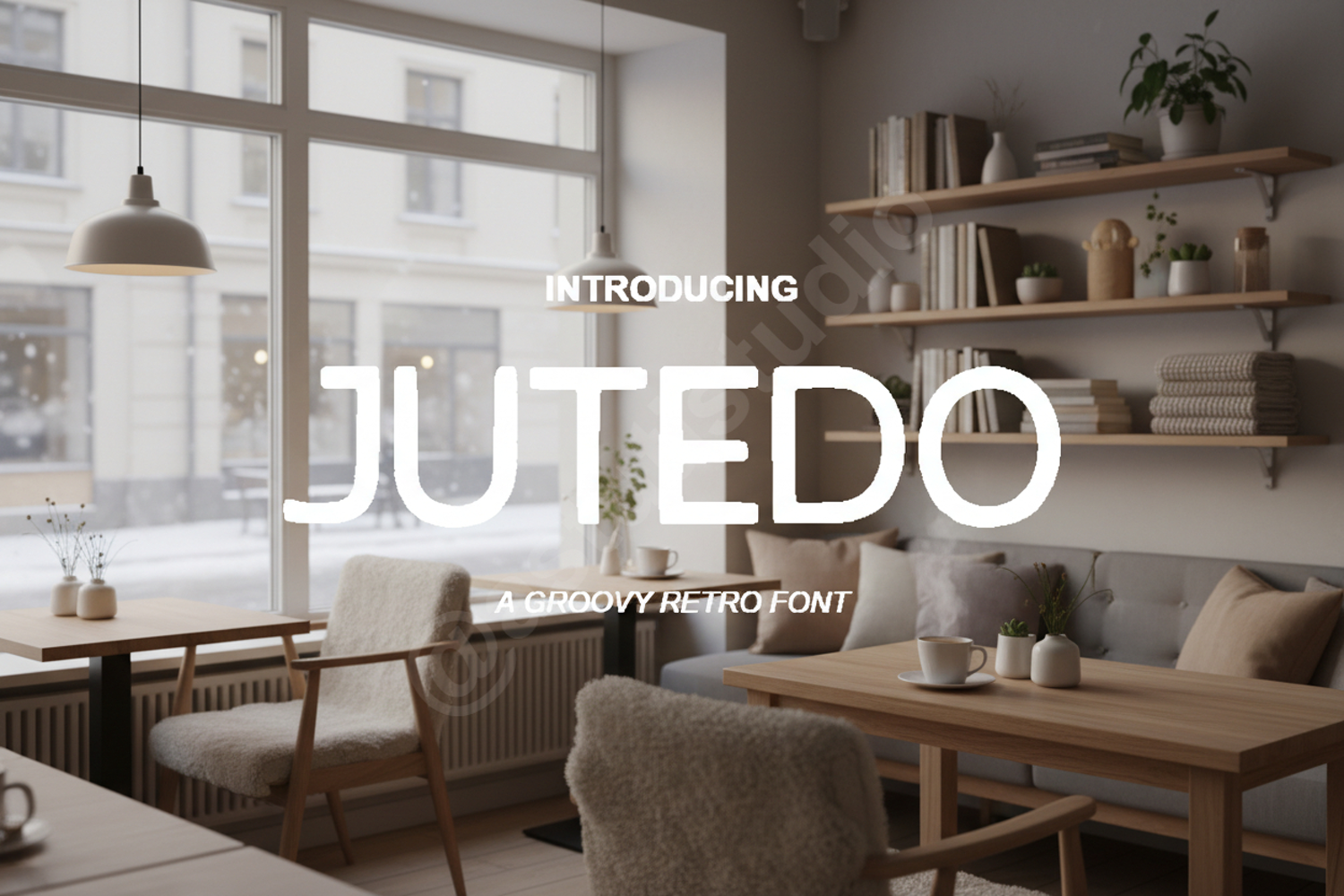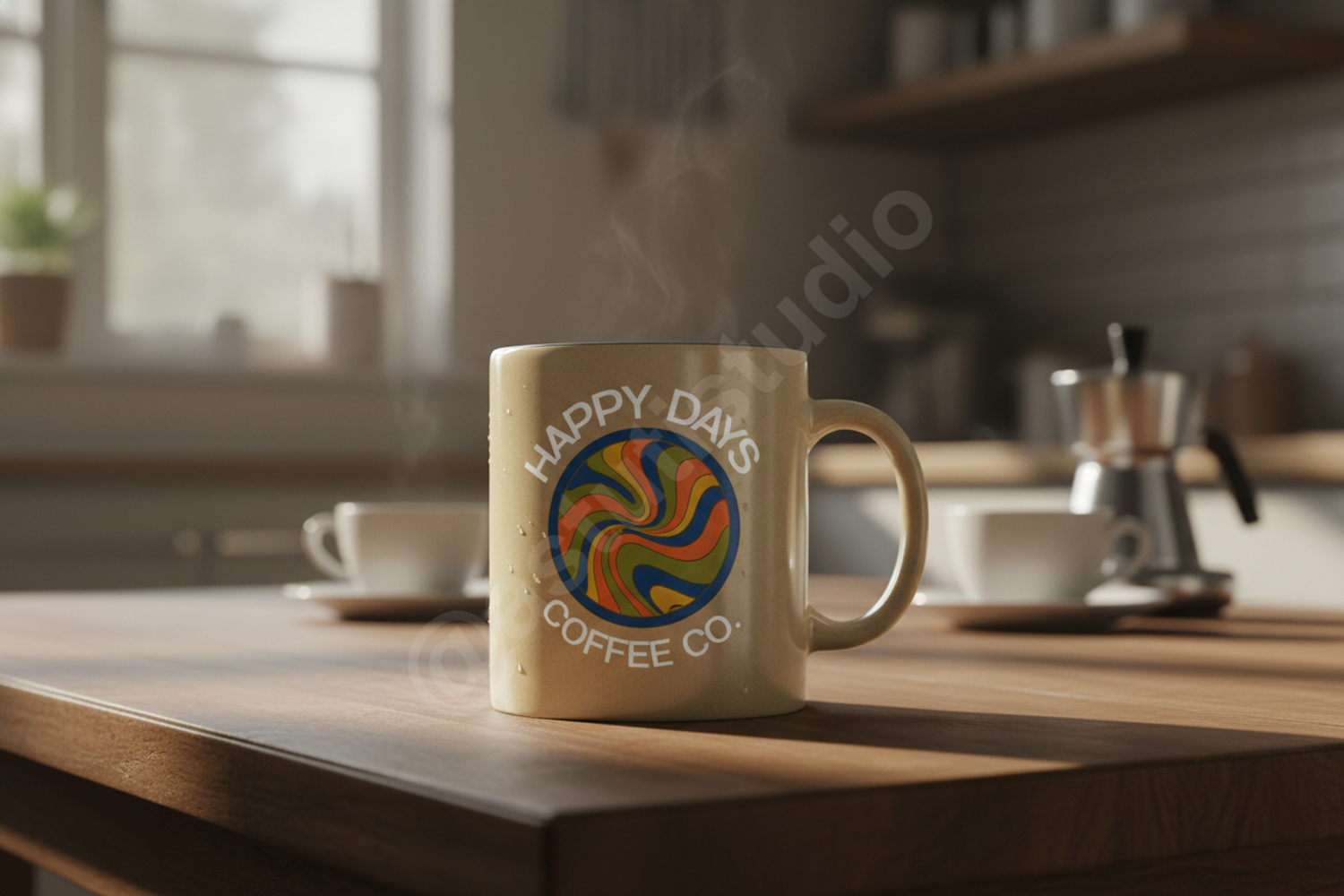
Jutedo - Modern Geometric Sans Serif Typeface
Jutedo
Elevate your design projects with Jutedo, a premium geometric sans-serif font designed for clarity and impact. Jutedo combines clean lines with a modern aesthetic, making it a versatile choice for designers seeking a professional edge. Whether you are working on a minimalist brand identity or a high-traffic website, this font delivers exceptional legibility and sophisticated style.
- Full uppercase and lowercase character sets
- Comprehensive multilingual support
Jutedo is engineered to excel across various platforms and mediums:
- Branding and Identity: Create memorable logos and cohesive corporate stationery.
- Digital Media: Perfect for website headers, mobile apps, and social media graphics.
- Editorial Design: Ideal for magazine layouts, brochures, and book covers.
- Advertising: High-impact typography for posters, banners, and marketing campaigns.
- Wedding Stationery: A modern and elegant touch for contemporary invitations and cards.